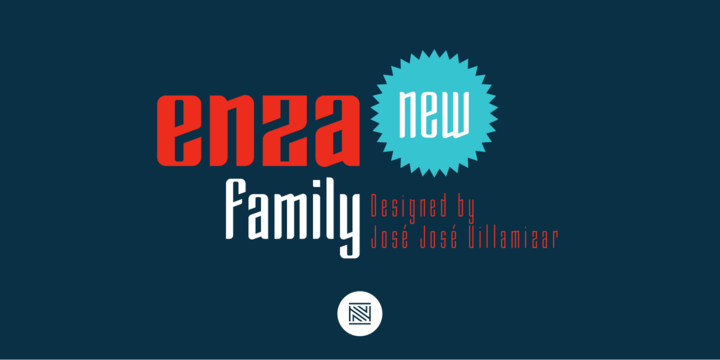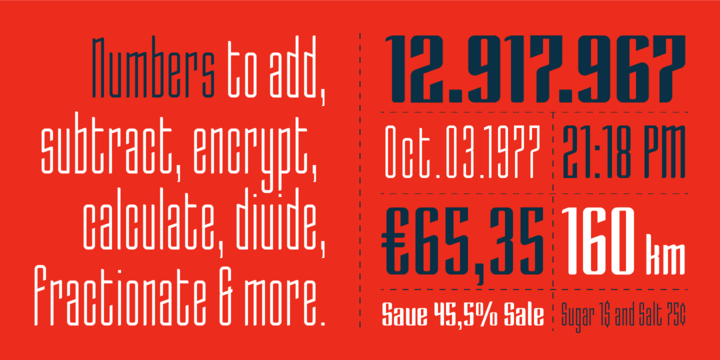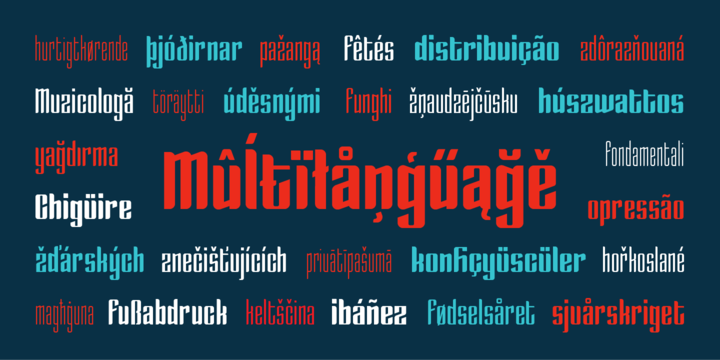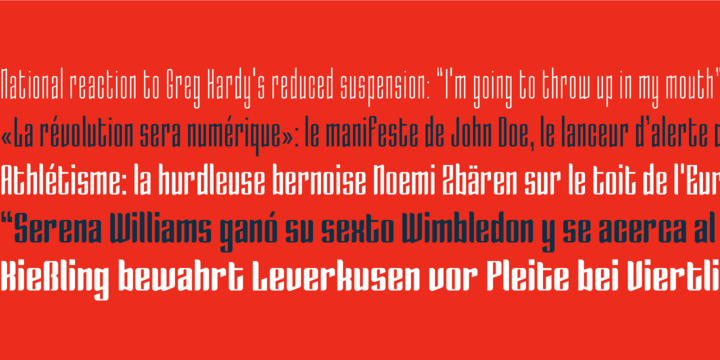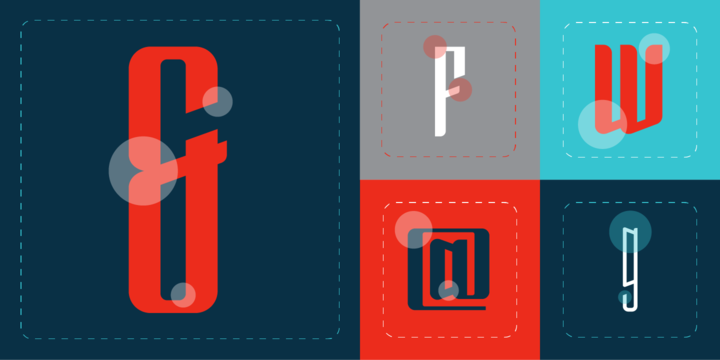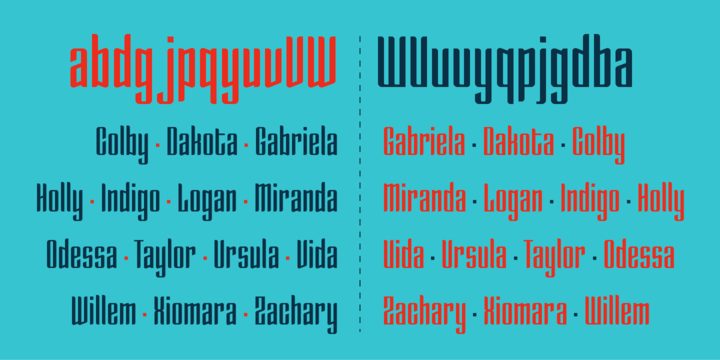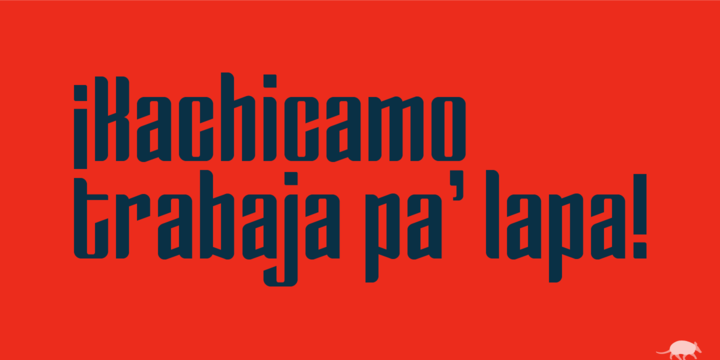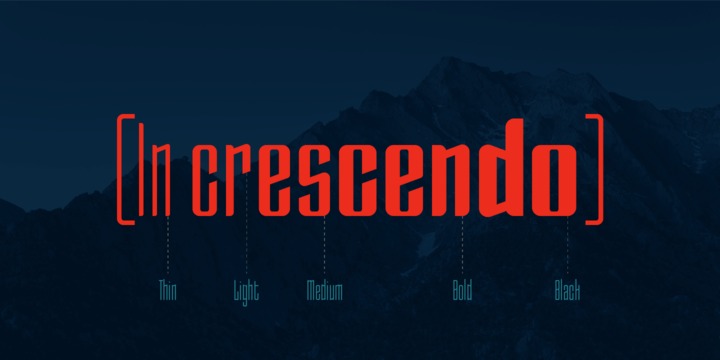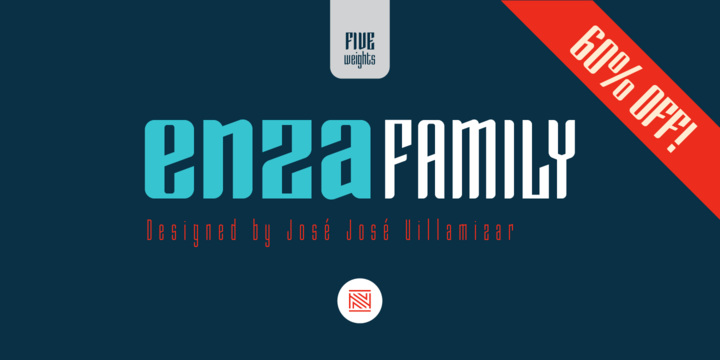
Enza Font Family
Enza is a display font designed by José José Villamizar. Its design stems from the typographic exploration for the realization of the identity of a company aimed at entrepreneurs in the millennium generation. It’s a family of five weights composed of 455 glyphs. includes Thin, Light, Medium, Bold and Black styles. It also includes stylistic alternates, fractions, and ligatures. Its use for titles, condensed texts, or short and elements of visual communication large phrases is recommended. It is also ideal for creating logos.